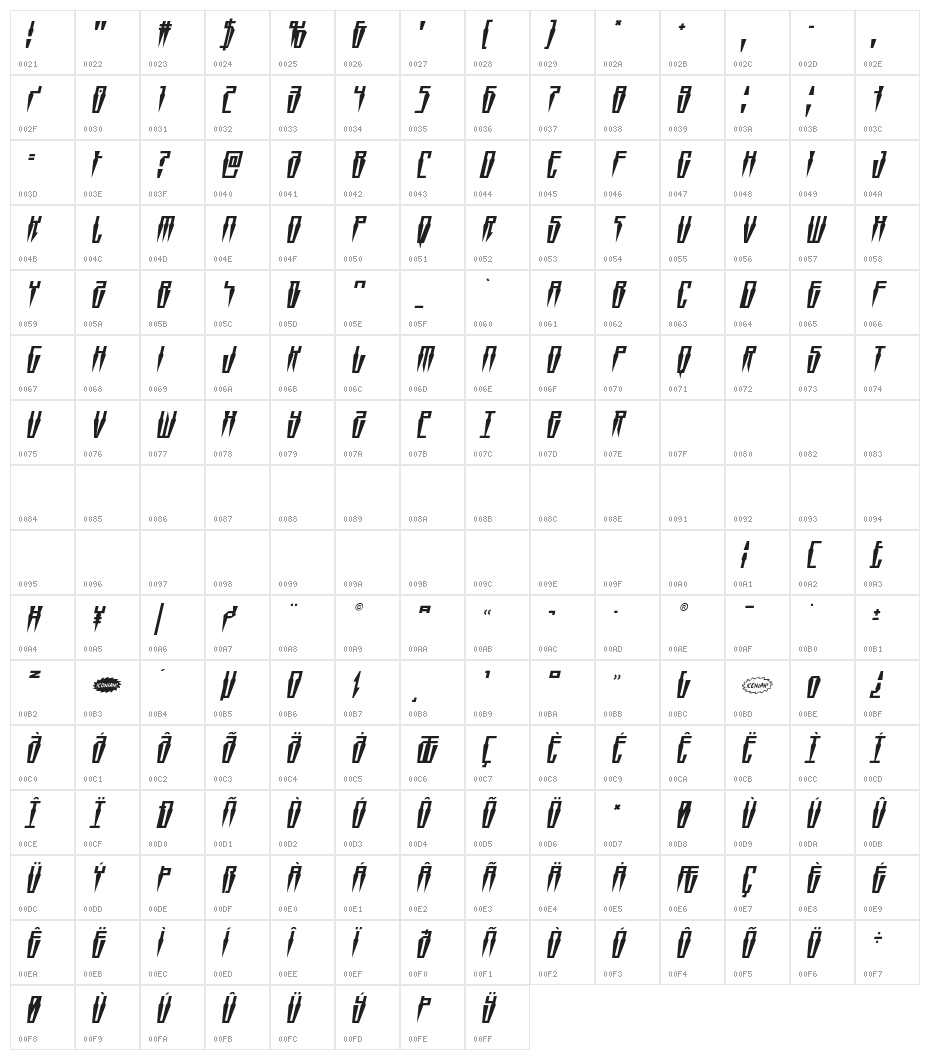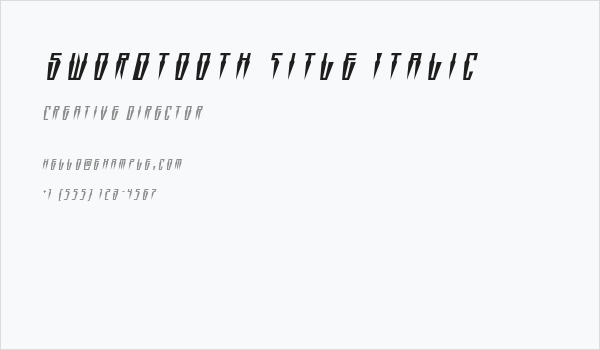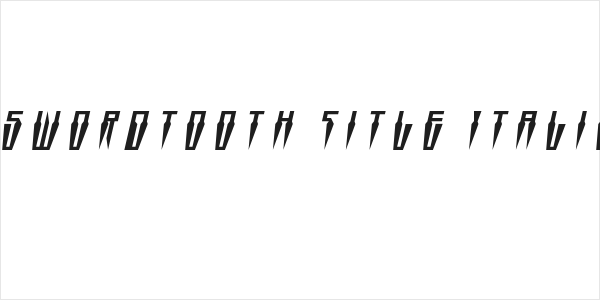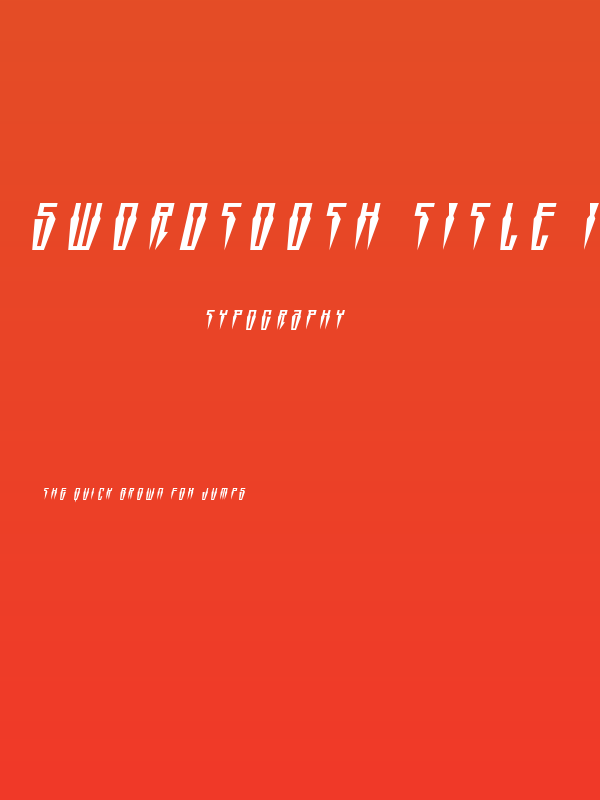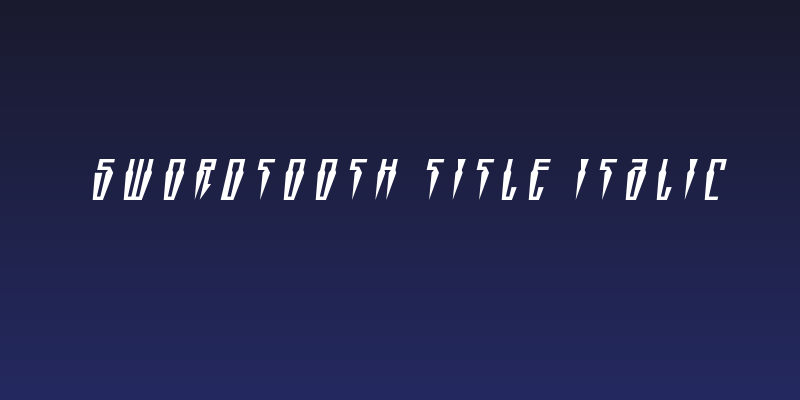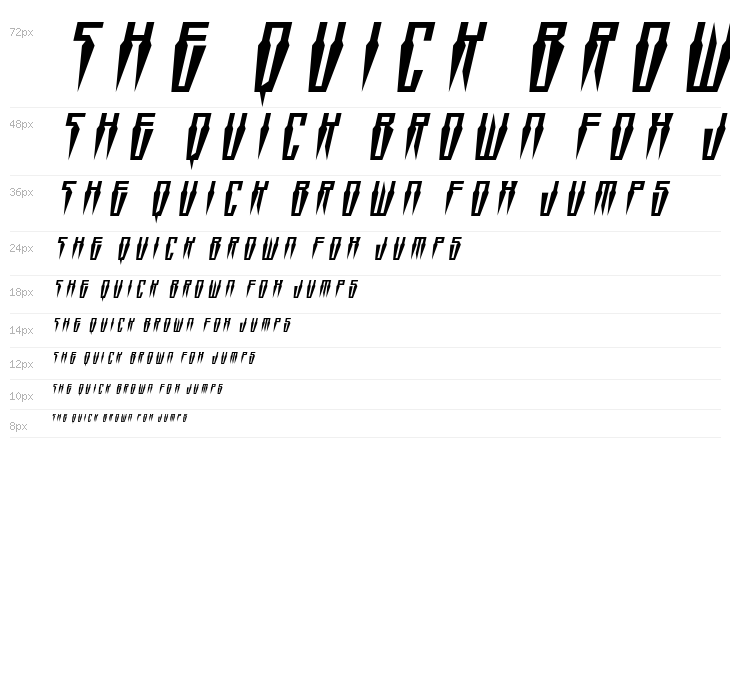
Swordtooth Title Italic Font
Swordtooth Title Italic Description
This font features a sharp, angular design with a distinct italic slant, giving it a dynamic and aggressive appearance. The characters are bold and elongated, with pointed edges that create a sense of movement and intensity. The uppercase and lowercase letters maintain a consistent style, emphasizing the font's cohesive and striking aesthetic. Numbers and special characters are designed to match the overall theme, ensuring uniformity across all elements. The font's unique style makes it suitable for projects that require a bold and impactful visual statement.
| Overall Style | Modern, Aggressive |
| Proposed Projects | Ideal for video game titles, movie posters, sports branding, and edgy graphic design projects. |